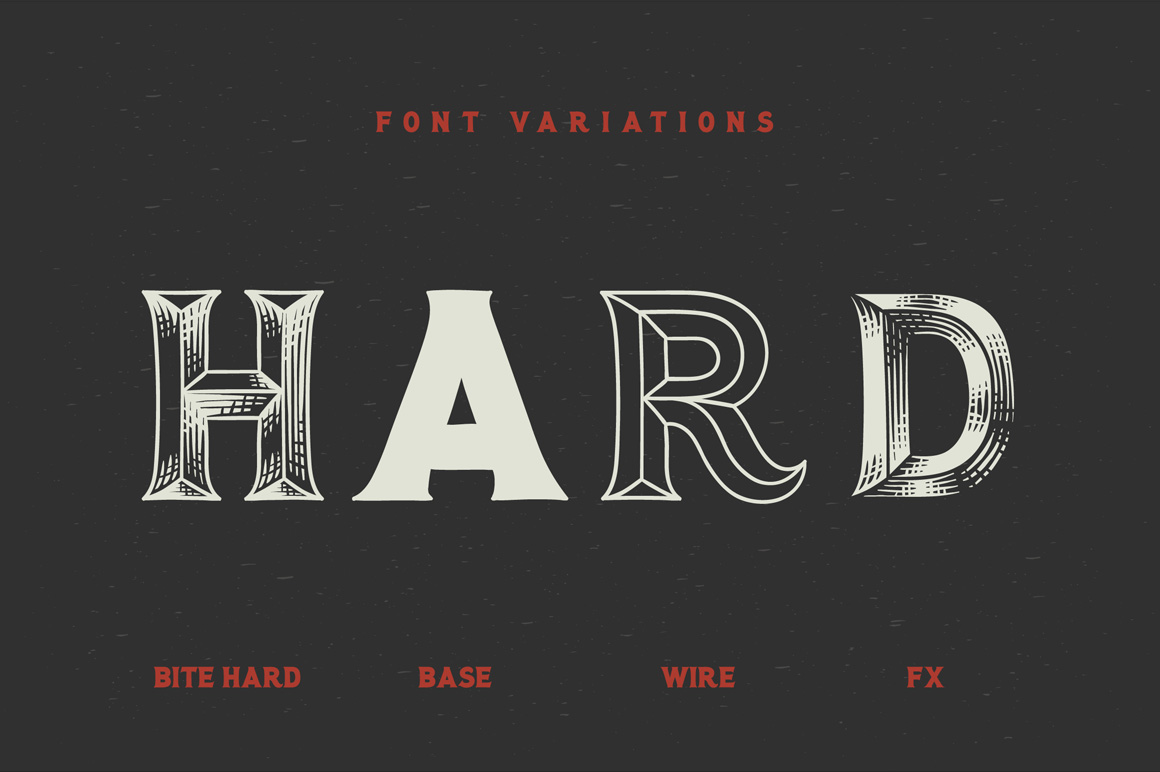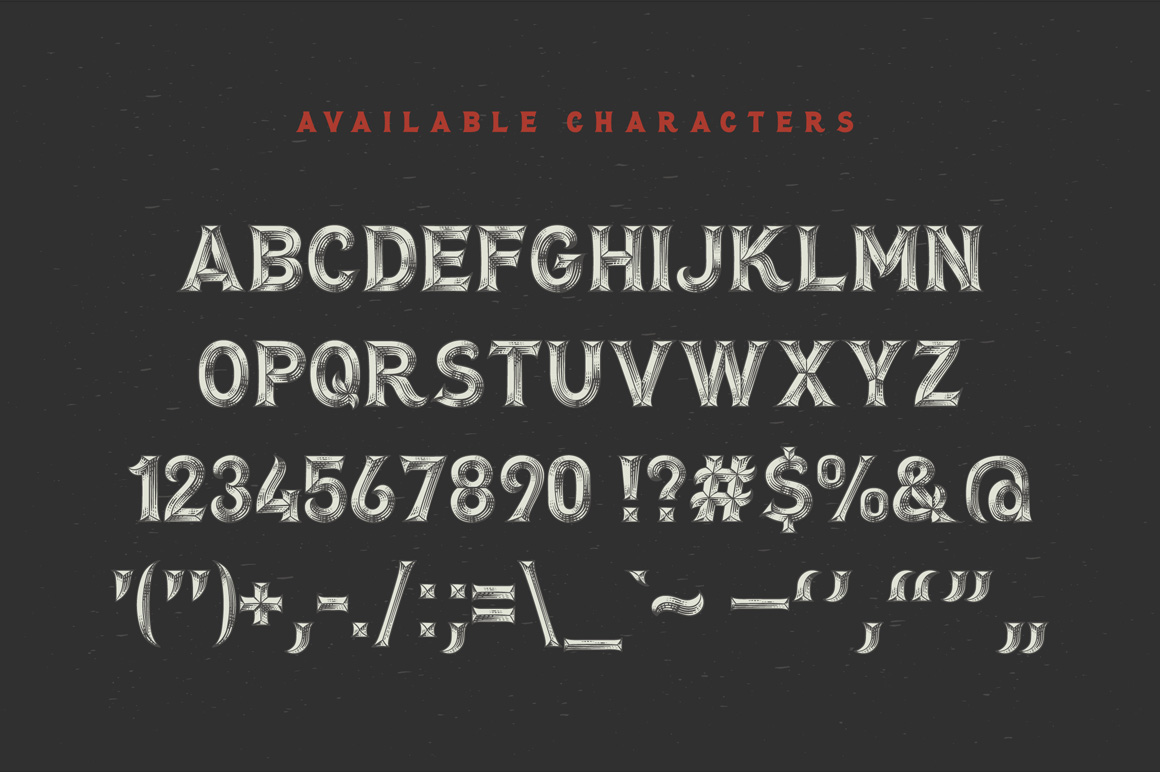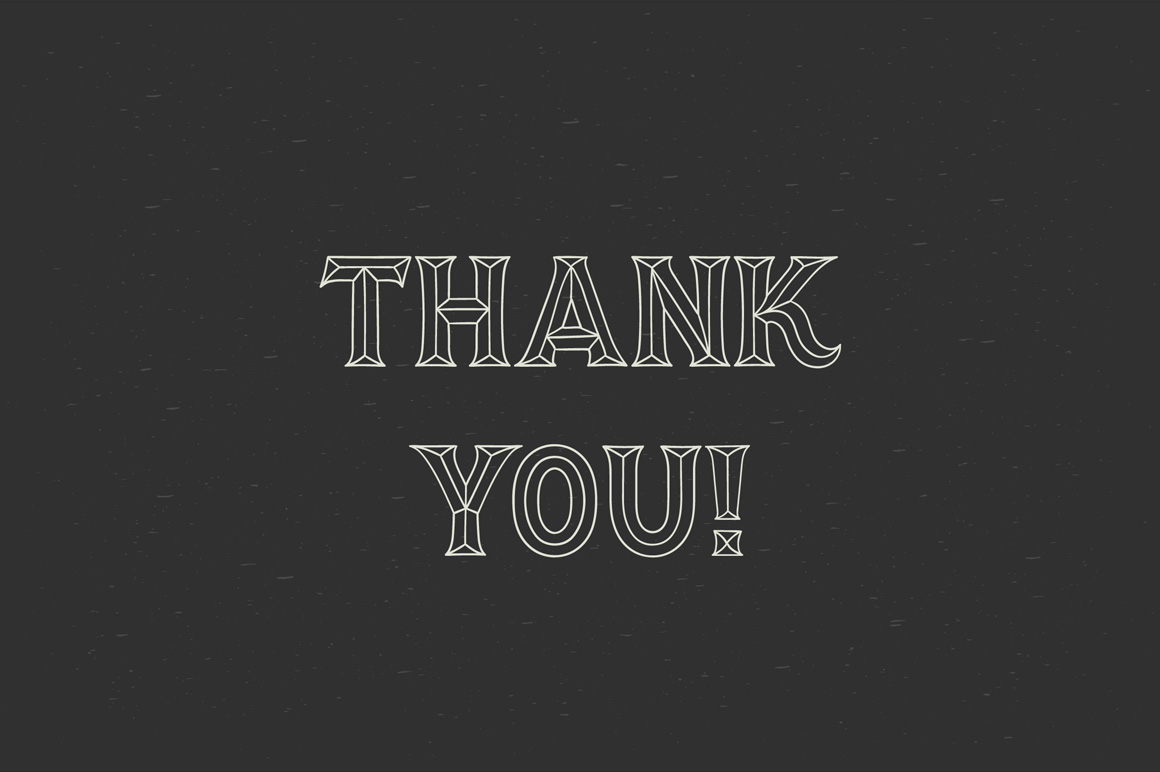
Bite Hard Font: Elevate Your Designs with a Beautiful Hand-Decorated Touch
Are you a designer or crafter looking for a unique and stunning font to elevate your creative projects? Look no further than Bite Hard Font, a beautiful hand-decorated font that is packed with intricate details and versatility. In this article, we’ll dive into the world of Bite Hard Font, exploring its features, variations, and uses, as well as provide tips and inspiration for incorporating it into your designs.
What is Bite Hard Font?
Bite Hard Font is a hand-decorated font that boasts a distinctive, artistic look. Each letter is carefully crafted with precision and attention to detail, resulting in a beautiful and eye-catching font that is sure to make your designs stand out. With its unique blend of elegance and playfulness, Bite Hard Font is perfect for a wide range of creative projects, from branding and advertising to crafting and DIY.
Key Features of Bite Hard Font
- Hand-decorated with love: Each letter in Bite Hard Font is meticulously crafted by hand, giving it a personal and artistic touch.
- Packed with details: From intricate patterns to delicate flourishes, Bite Hard Font is bursting with visual interest.
- 4 variations to mix and match: With four different versions of the font, you can create unique and stunning combinations to suit your design needs.
Exploring the 4 Variations of Bite Hard Font
One of the standout features of Bite Hard Font is its versatility. With four distinct variations, you can experiment with different combinations to achieve the perfect look for your project. Whether you’re looking for a bold and playful font or a more elegant and refined one, Bite Hard Font has got you covered.
The four variations of Bite Hard Font include:
- Main Font: The primary font, which features intricate details and decorations.
- Variation 1: A subtle variation with a slightly different pattern and texture.
- Variation 2: A bolder and more playful version, with exaggerated decorations and flourishes.
- Variation 3: A more elegant and refined version, with delicate details and subtle texture.
Using Bite Hard Font in Your Designs
Bite Hard Font is an incredibly versatile font that can be used in a wide range of creative projects. Here are just a few ideas to get you started:
- Branding and advertising: Use Bite Hard Font to create eye-catching logos, posters, and advertisements that stand out from the crowd.
- Crafting and DIY: Add a personal touch to your crafting and DIY projects, such as handmade cards, gift tags, and decorations.
- Digital art and illustration: Incorporate Bite Hard Font into your digital art and illustrations, such as typographic quotes, posters, and graphics.
Tips and Tricks for Working with Bite Hard Font
To get the most out of Bite Hard Font, here are a few tips and tricks to keep in mind:
- Experiment with different variations: Don’t be afraid to try out different combinations of the four variations to achieve the perfect look.
- Adjust font size and color: Play around with different font sizes and colors to add depth and visual interest to your designs.
- Pair with other fonts: Combine Bite Hard Font with other fonts to create a unique and eye-catching typographic combination.
In conclusion, Bite Hard Font is a beautiful hand-decorated font that offers a unique and stunning way to elevate your designs. With its intricate details, four variations, and versatility, it’s perfect for designers and crafters looking to add a personal touch to their creative projects. Whether you’re working on branding and advertising, crafting and DIY, or digital art and illustration, Bite Hard Font is sure to inspire and delight.